Fancy Letter D Font
Every fancy font style rendered for just the letter D, so you can compare them side by side before picking one for an initial, a logo, or a single-character tag.
The Letter D in Every Style
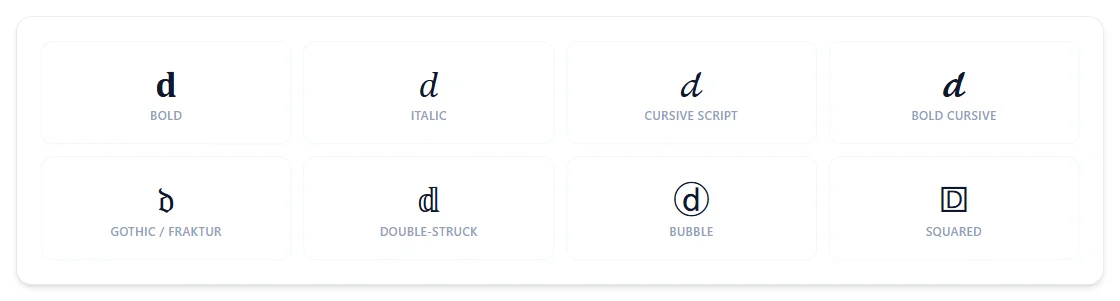
D is one of the more consistent letters across these styles — every variant here comes straight from a dedicated Unicode slot rather than borrowing a stand-in symbol, so what you see is a clean, purpose-built glyph in every case.
Does D look the same upside down as right-side up?
No — D flips to a mirrored shape (ᗡ) rather than staying self-symmetric, unlike letters such as H, N, or X.